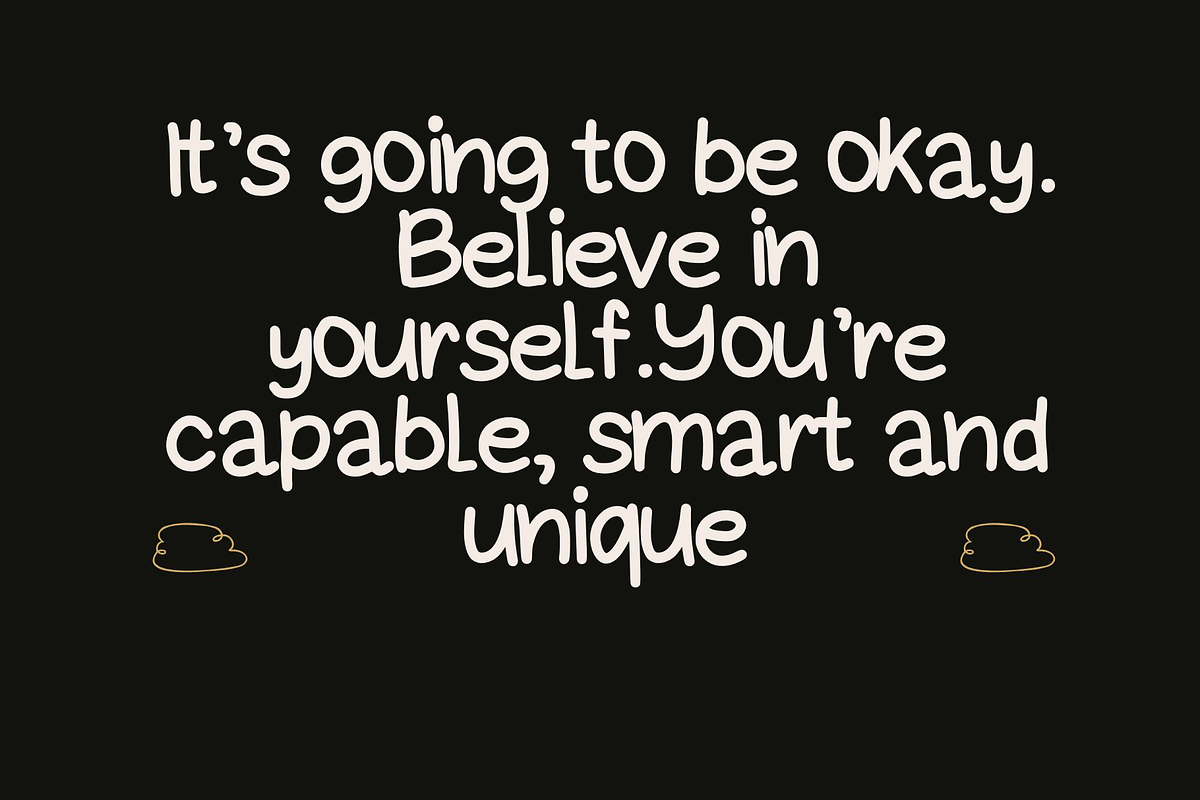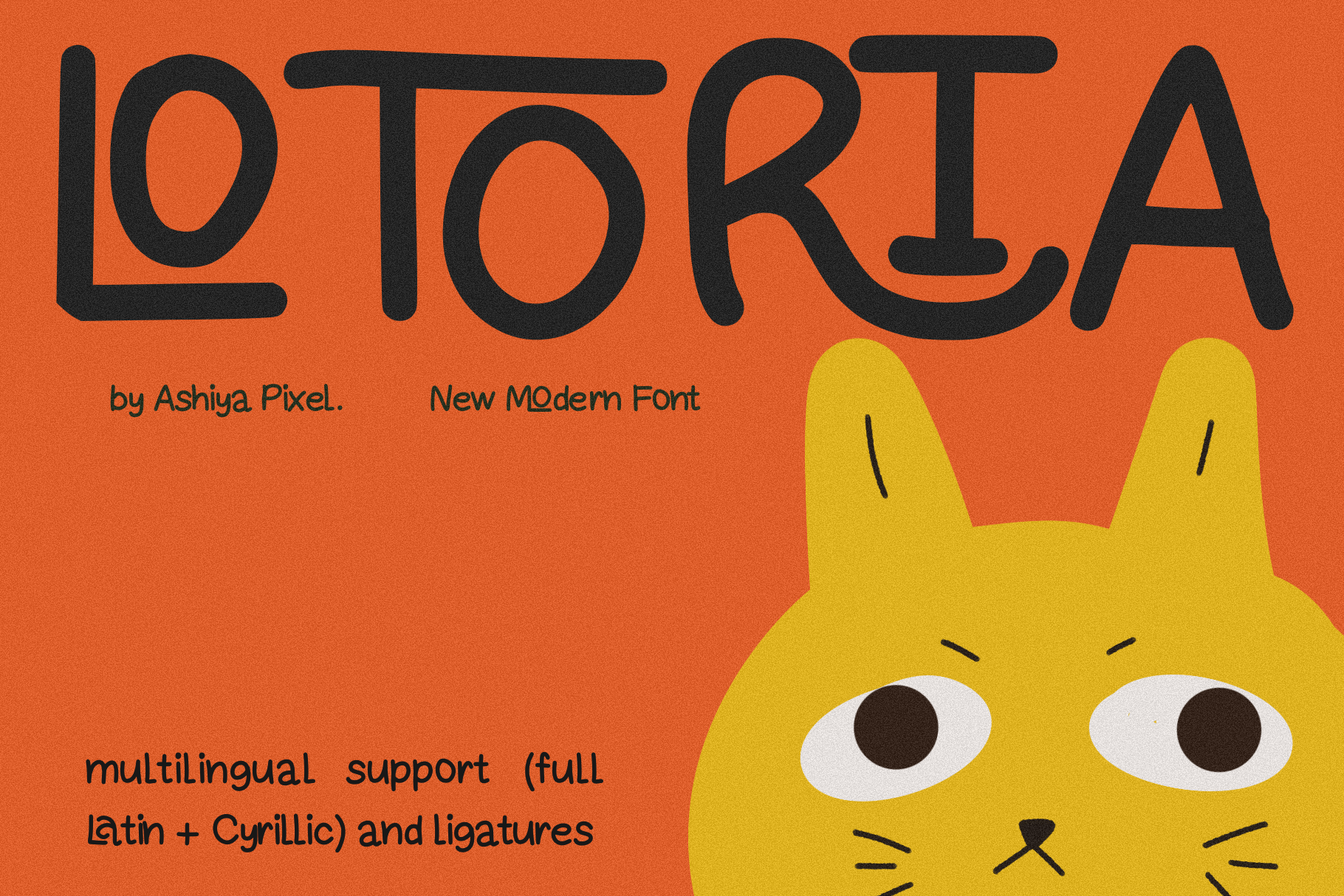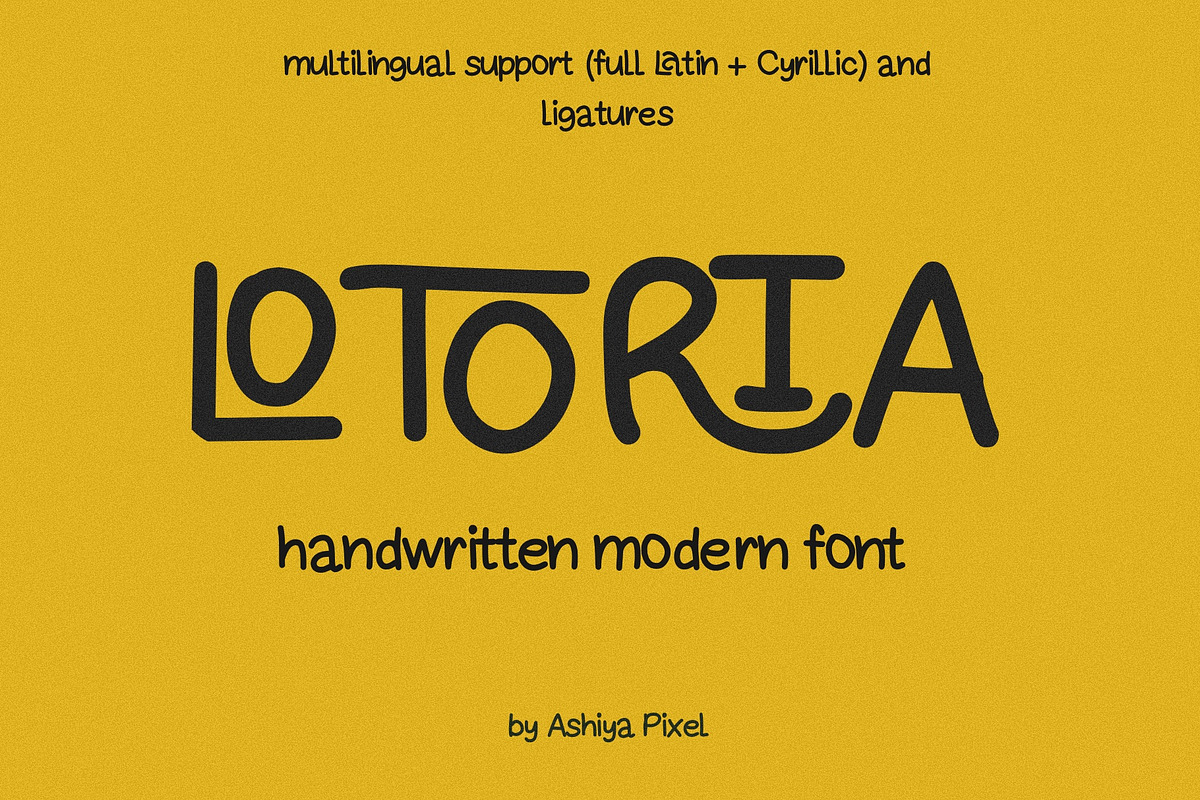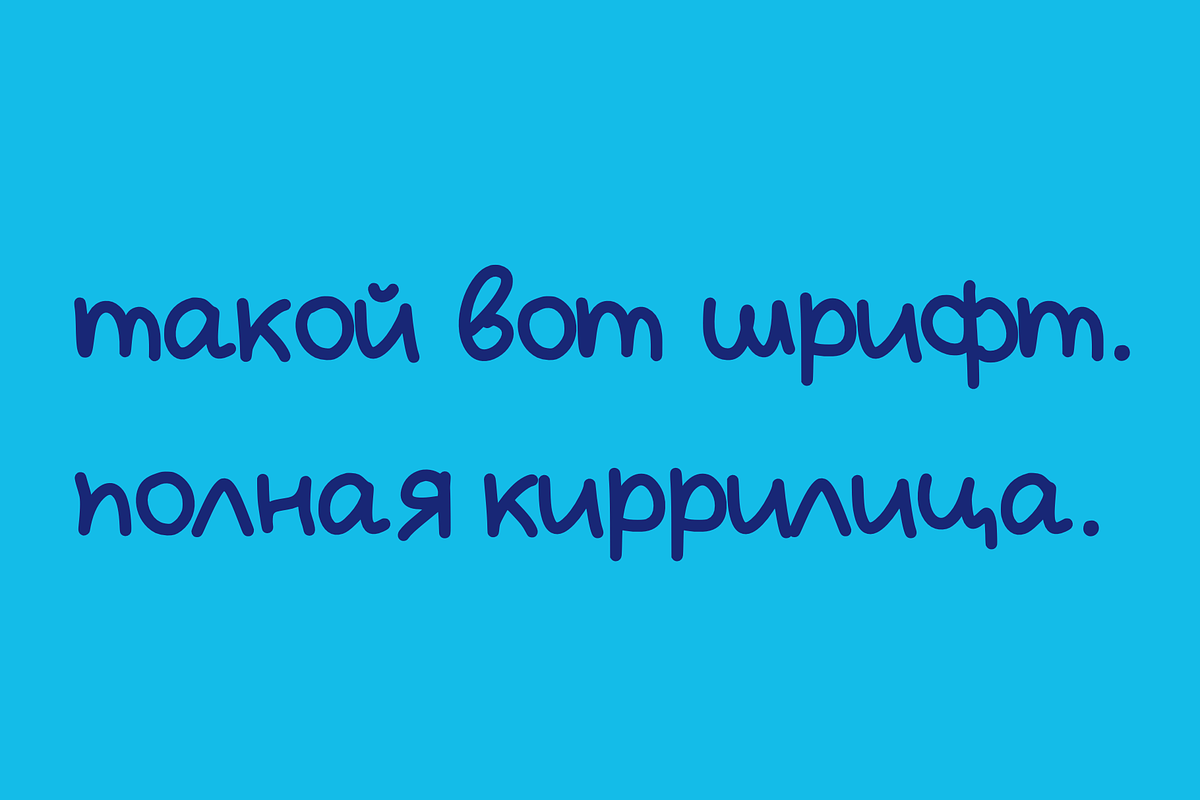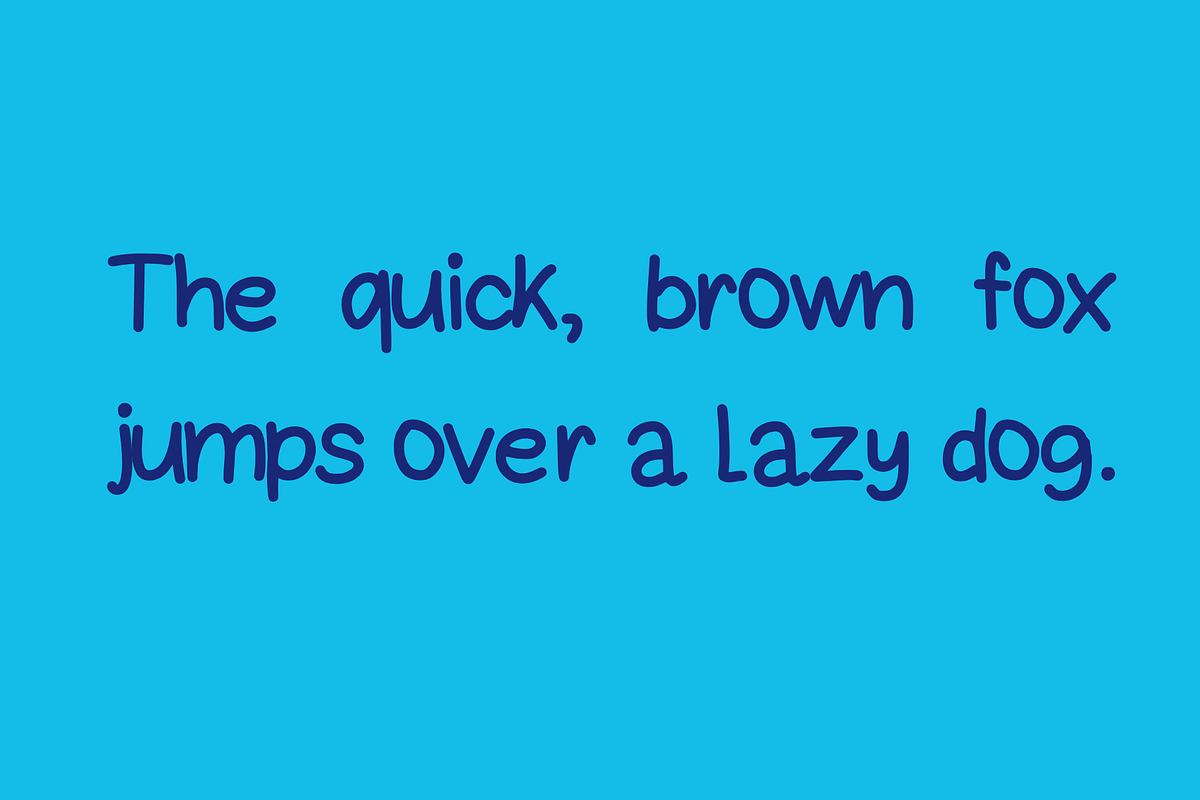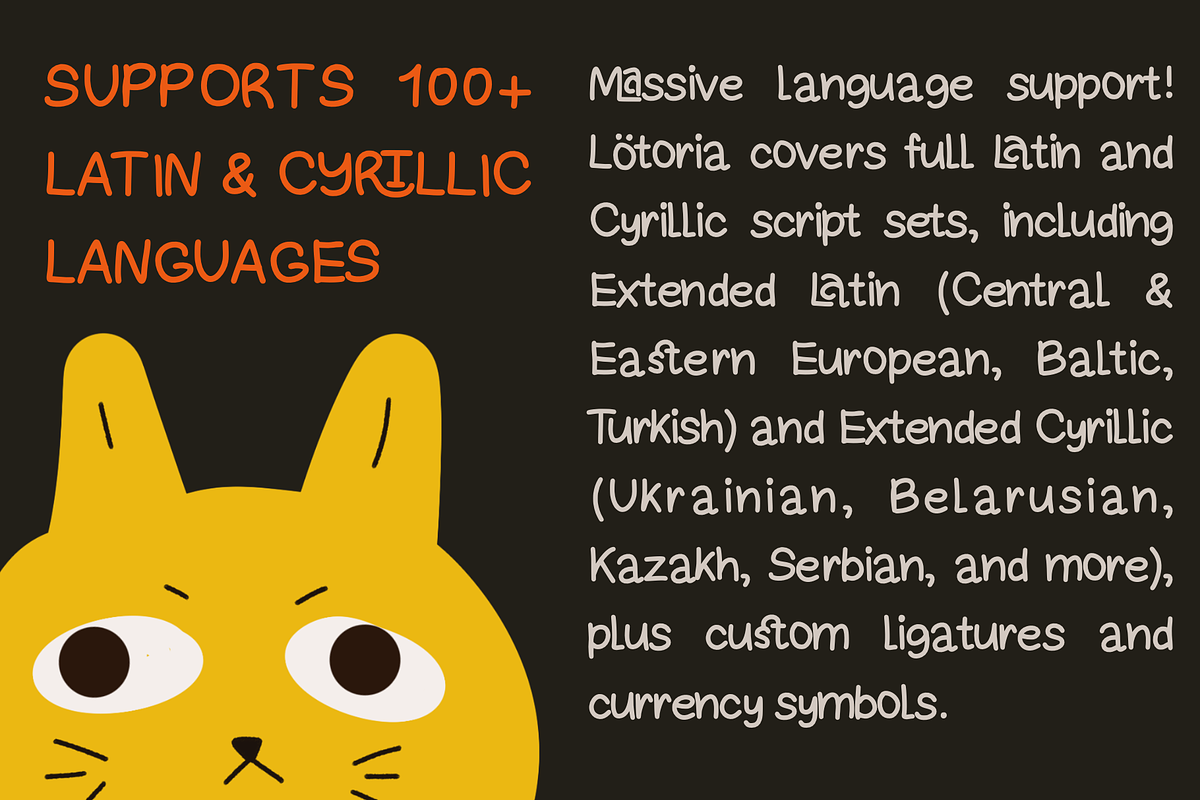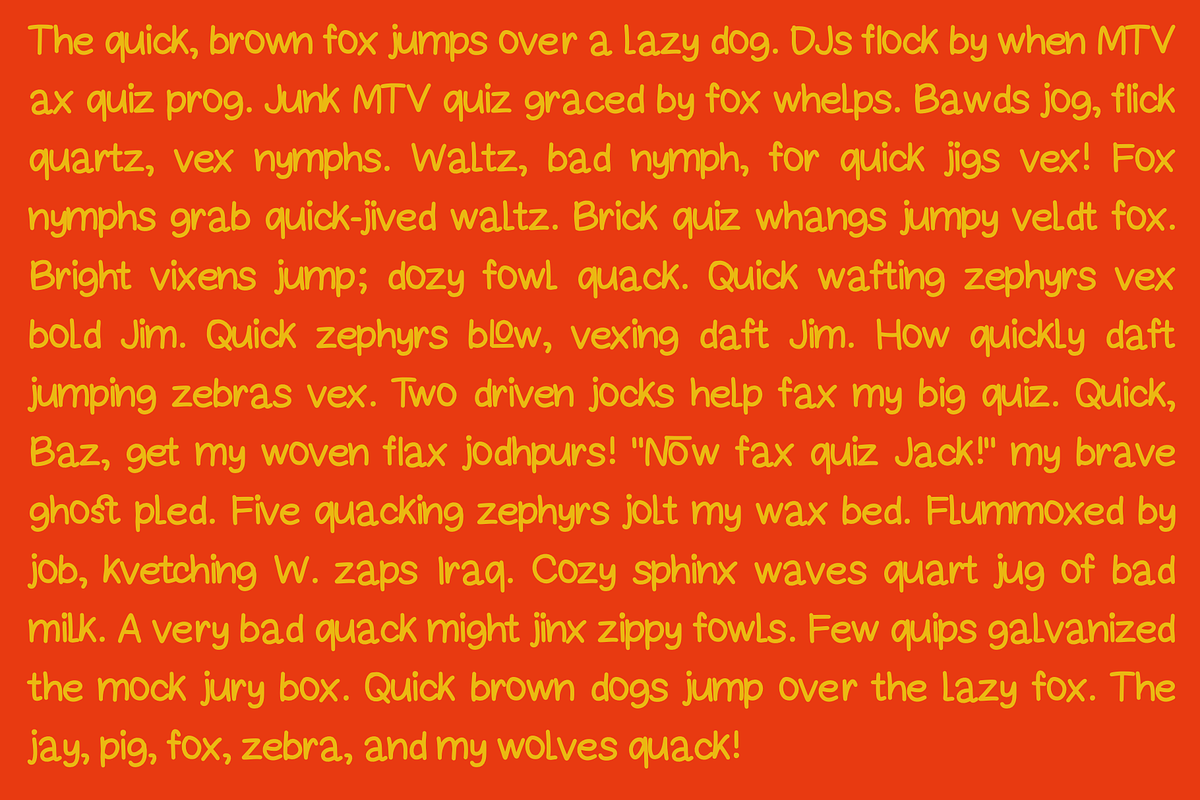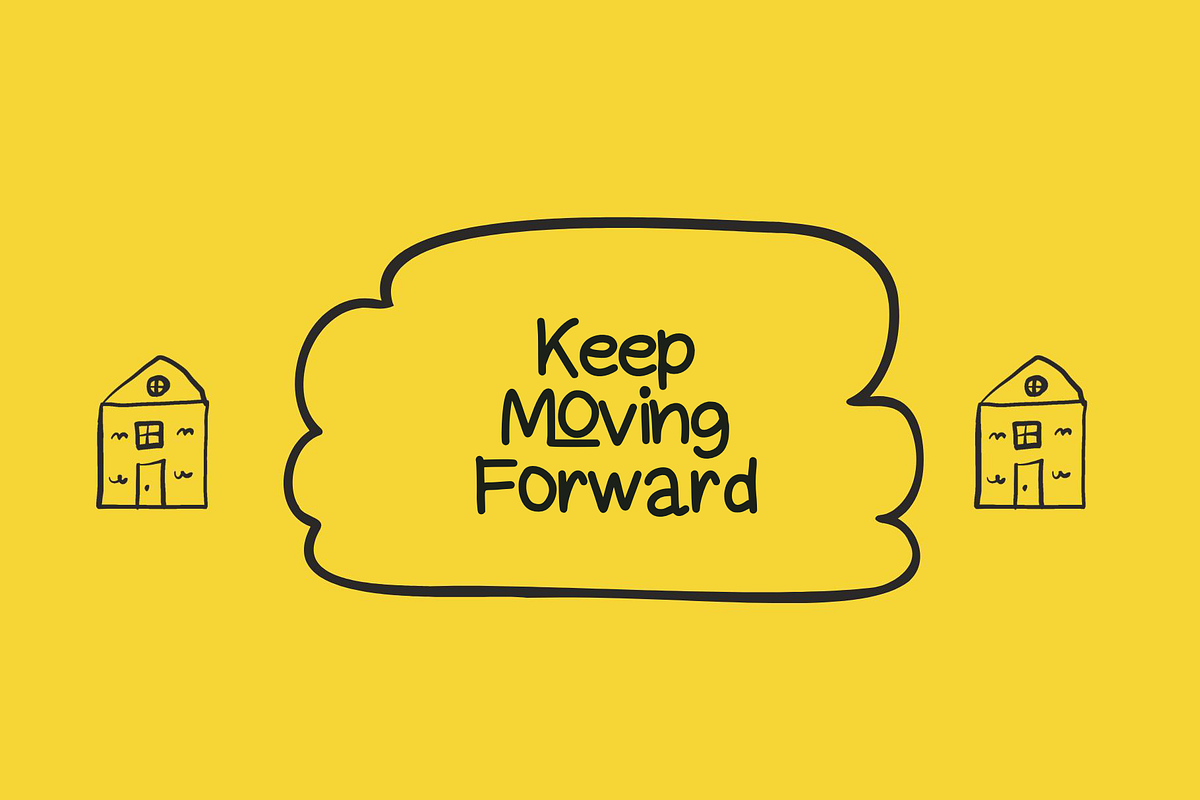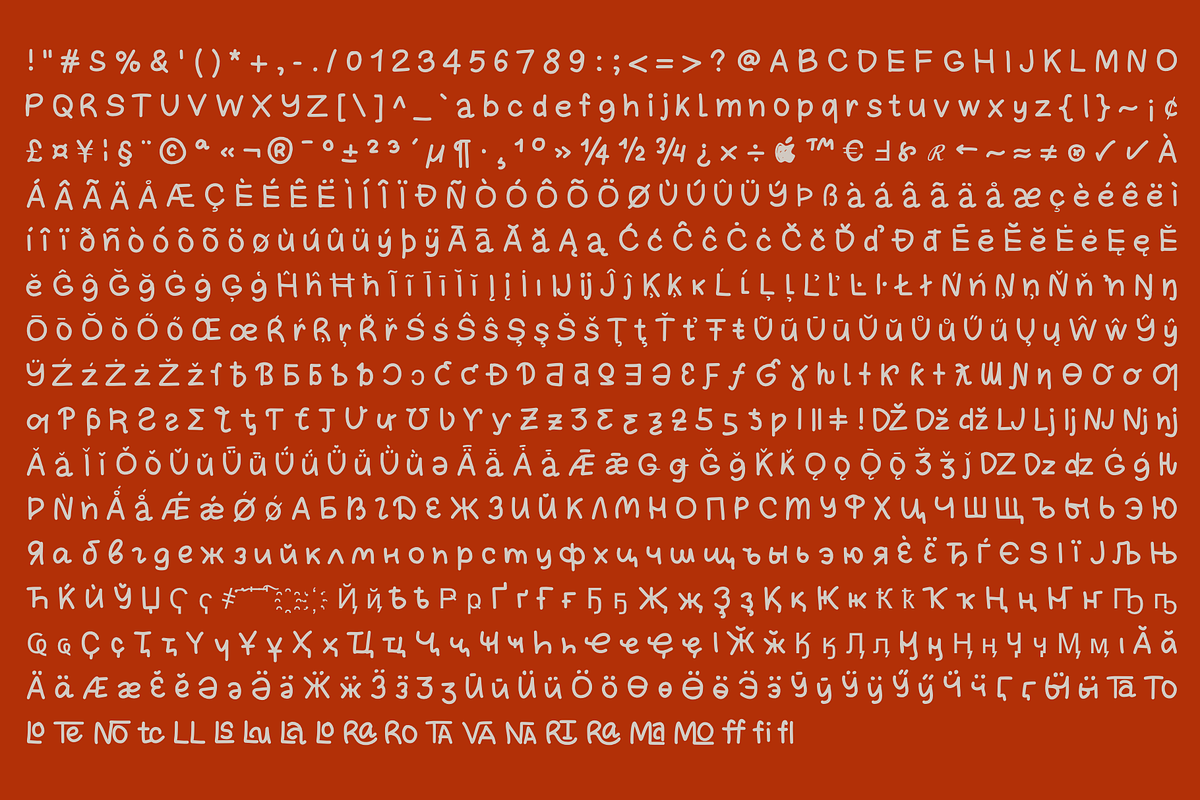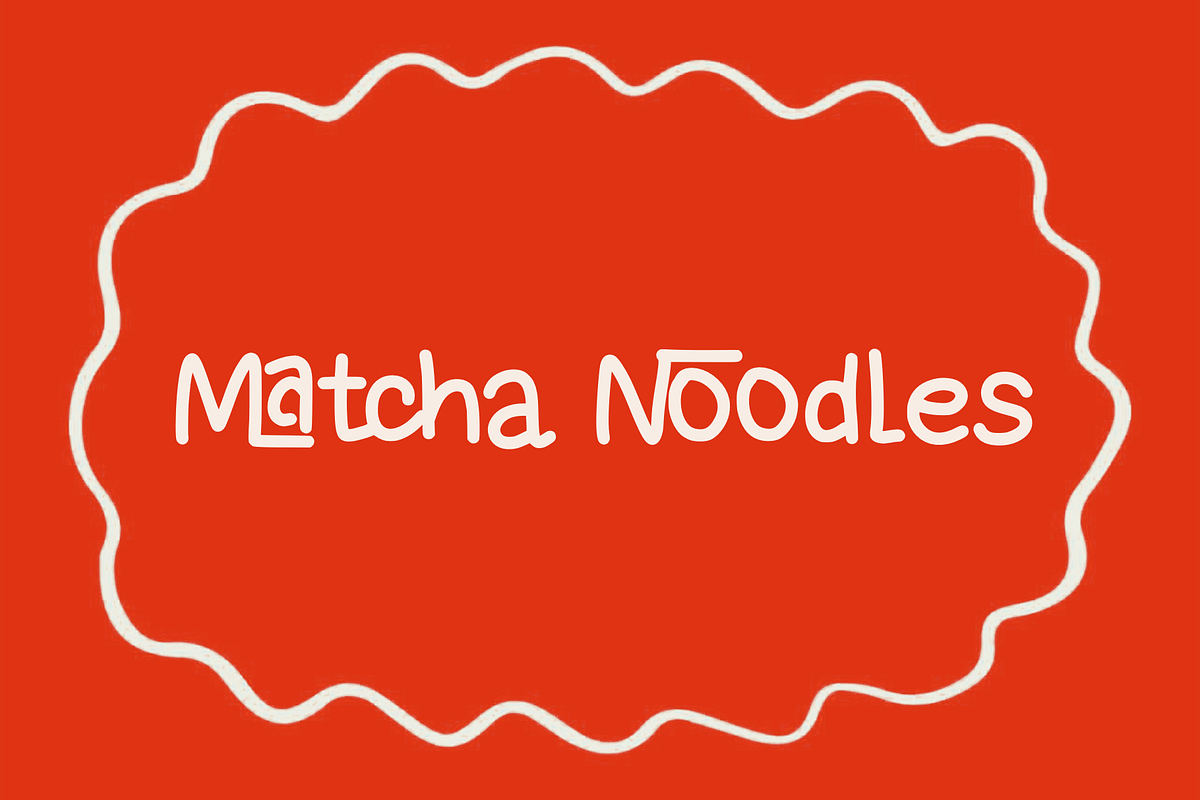
LOTORIA fun & cute, handwritten font
Supports 100+ Latin & Cyrillic languages, including Extended Cyrillic & Extended Latin.
Massive language support! Lotoria covers full Latin and Cyrillic script sets, including Extended Latin (Central & Eastern European, Baltic, Turkish) and Extended Cyrillic (Ukrainian, Belarusian, Kazakh, Serbian, and more), plus custom ligatures and currency symbols.